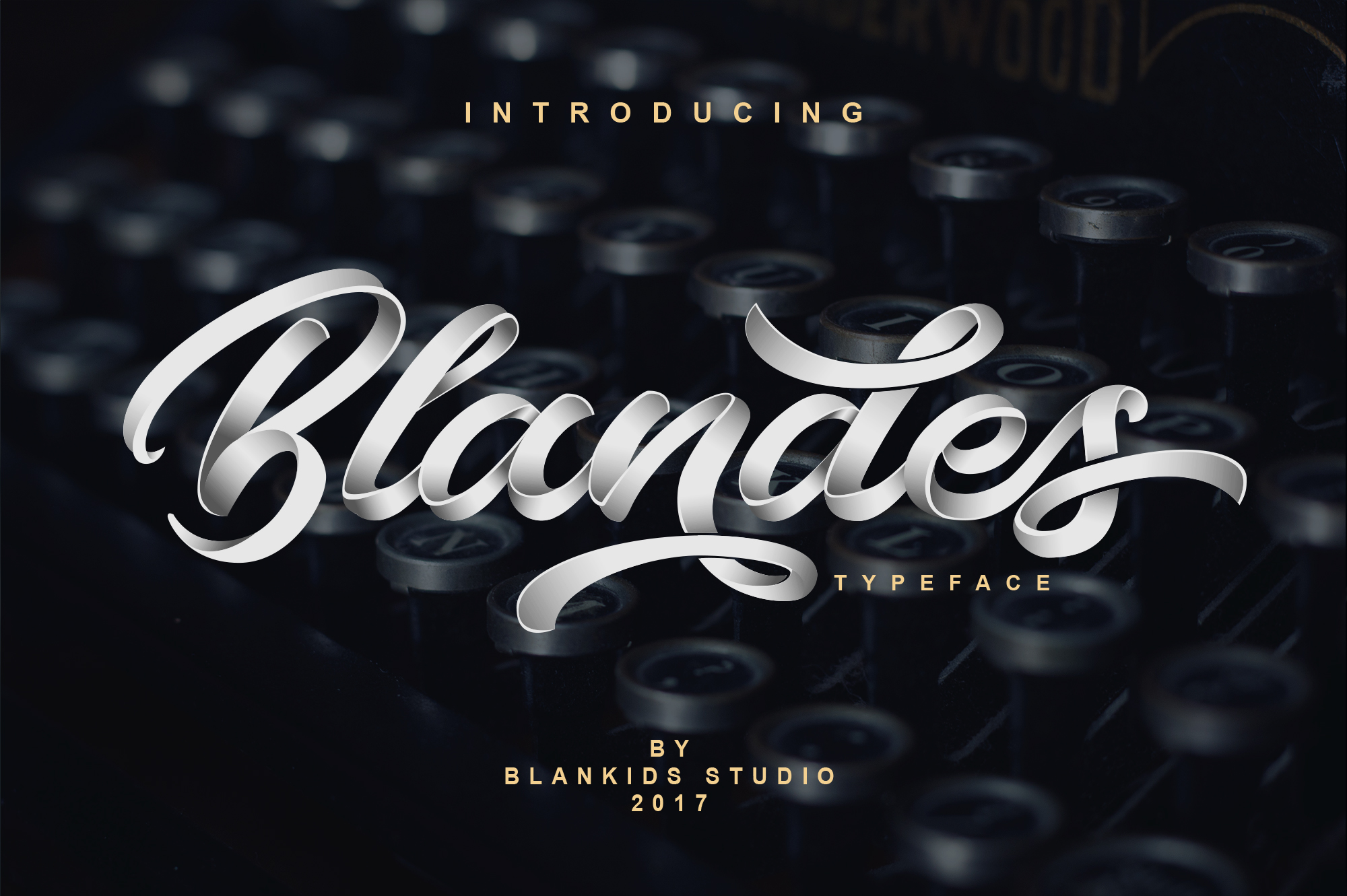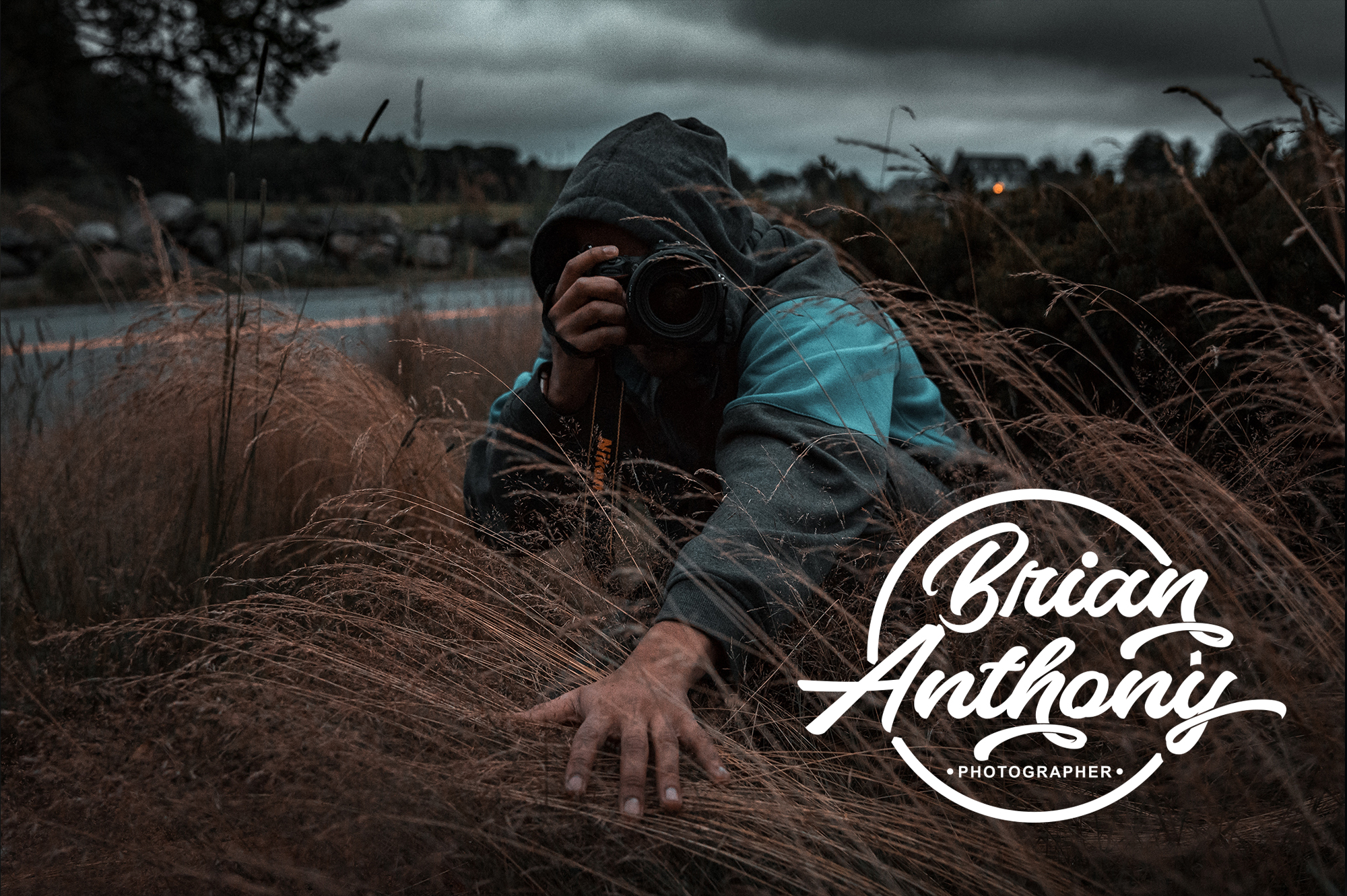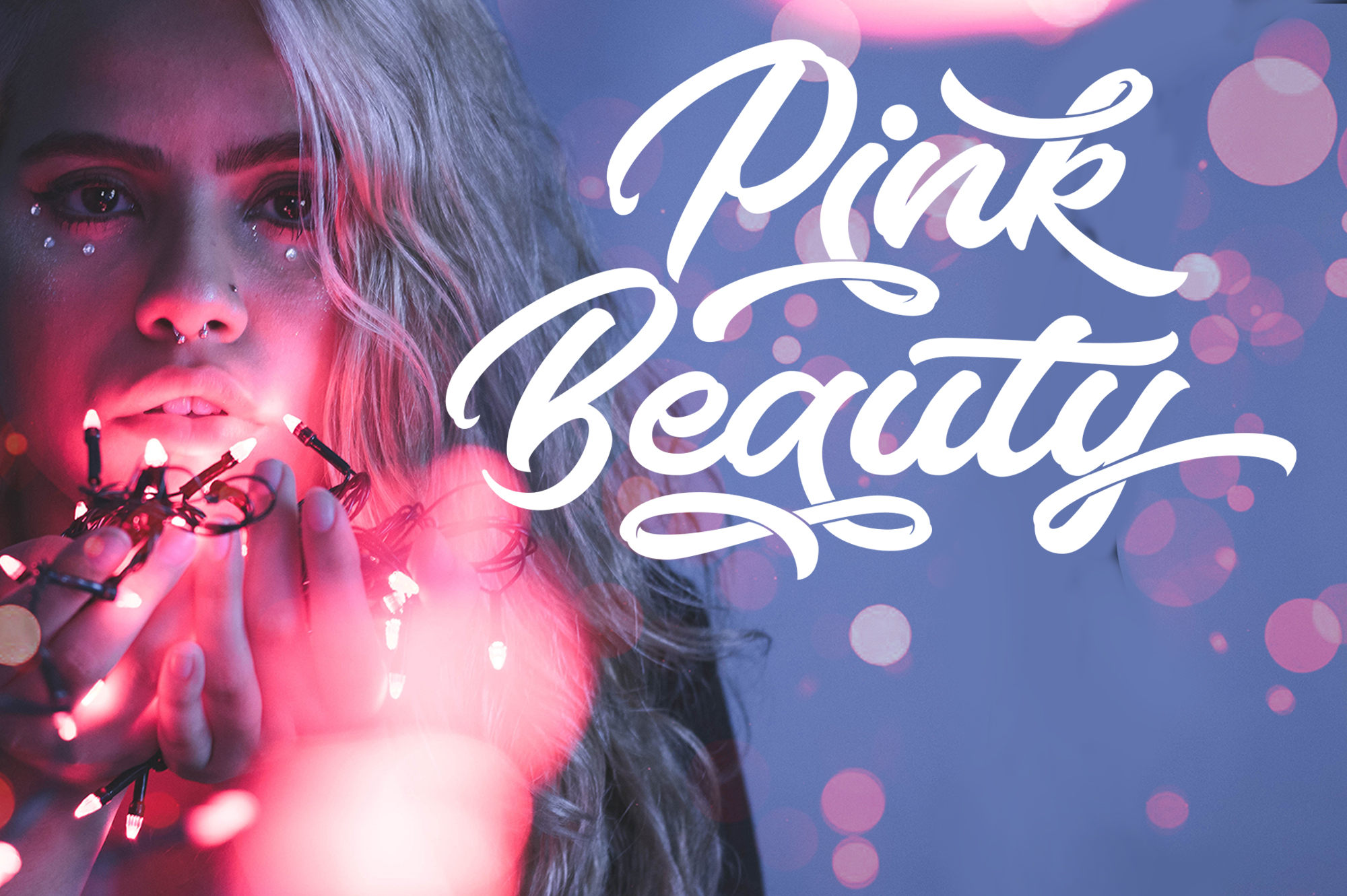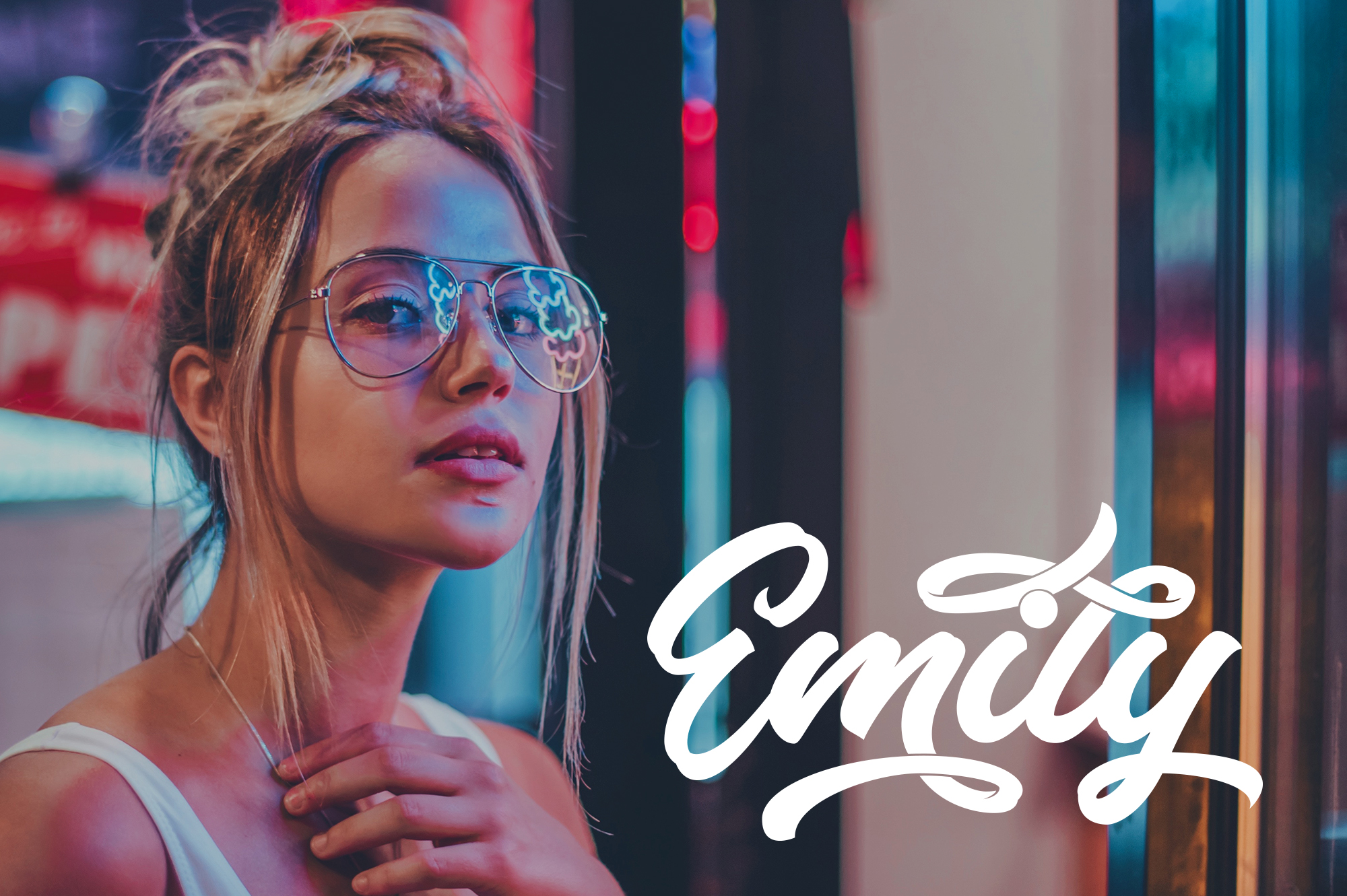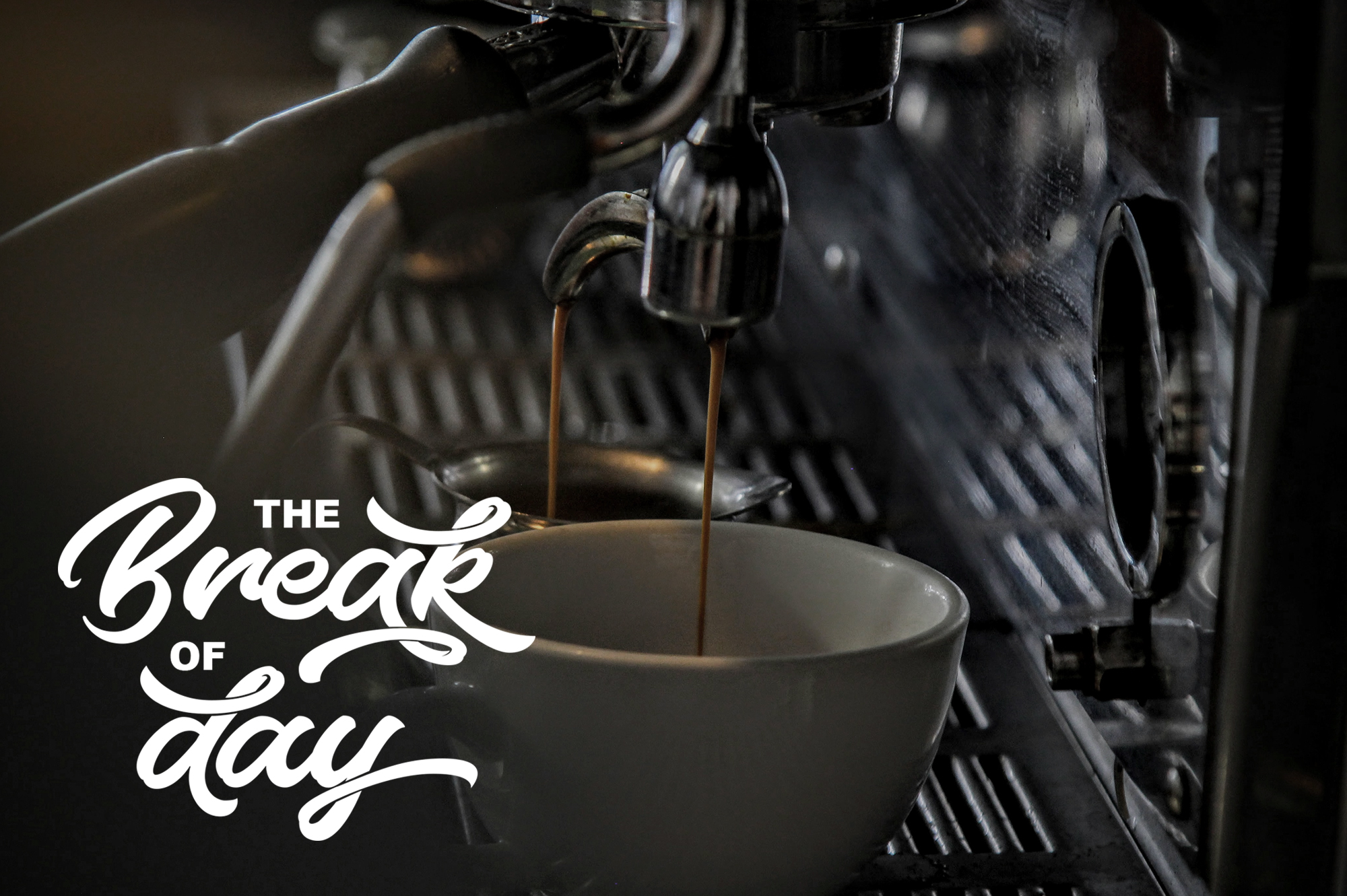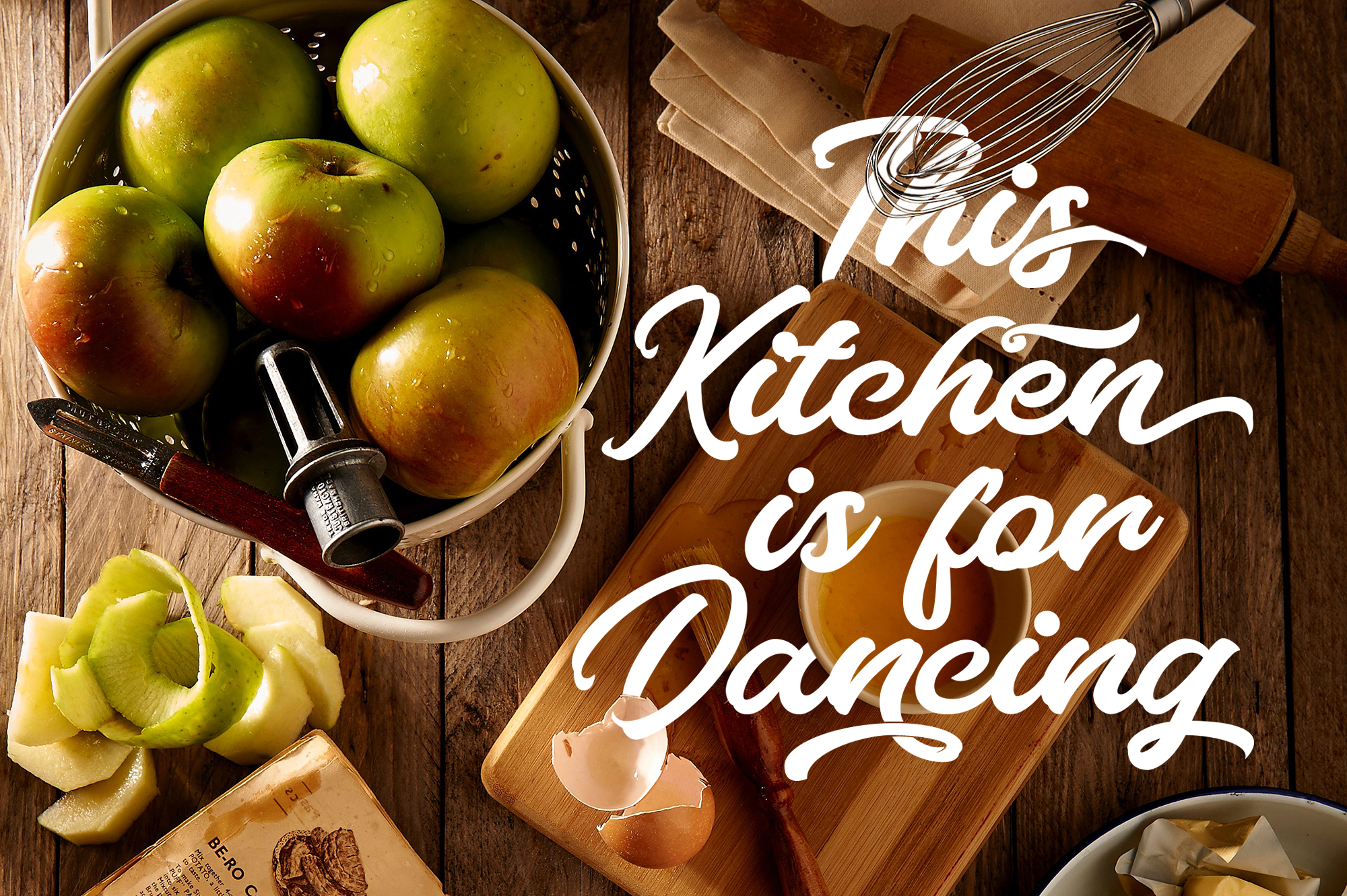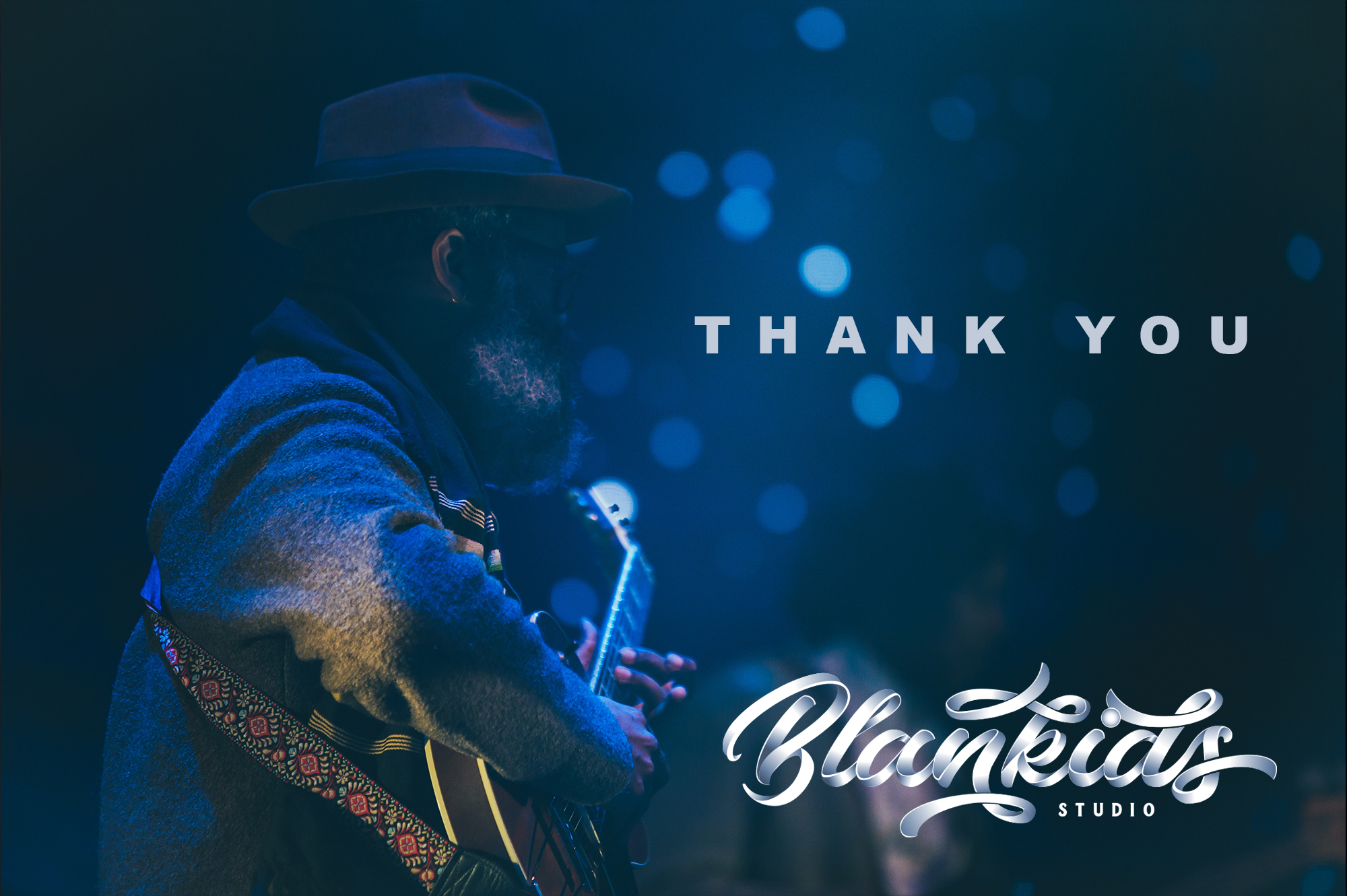
Blandes Font
About Blandes Font
Inspired and created by the anatomy of hand-lettering, Blandes is a wonderfully high impact and heavy script. This is original to the designer’s own handwriting, and includes alternate character styles that further amplify the uniqueness of this design.